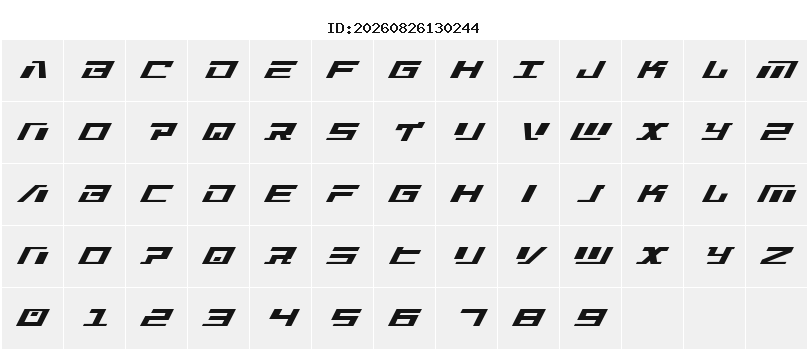
War Machine Super-Italic Preview
• Font Name: War Machine Super-Italic
• Full Font Name: War Machine Super-Italic
About War Machine Super-Italic.ttf
War Machine Super-Italic.ttf is a modern, elegant sans-serif font designed for ultimate readability and visual harmony. Perfect for branding, headlines, web design, and print materials.